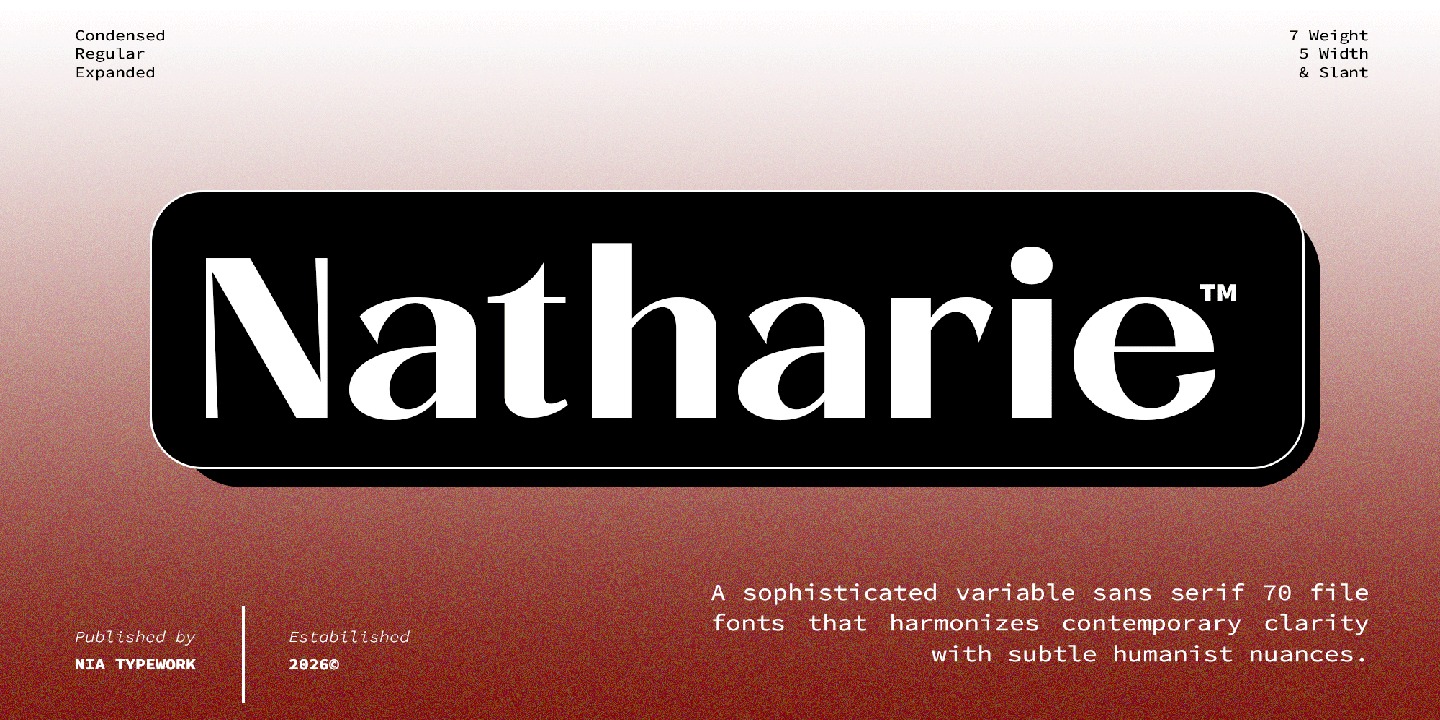
Natharie Font Family
Natharie Font Family brings a balanced structure and contemporary look, making it suitable for both digital and print design. Natharie is a refined sans serif typeface that seamlessly blends modern precision with subtle humanist warmth. Designed for exceptional versatility, it features a comprehensive range of weights, widths, and slants, empowering designers to craft tone and hierarchy effortlessly. Its clean structure guarantees outstanding readability in both print and digital contexts, while nuanced details contribute to a distinctive and approachable character. Natharie is ideal for elegant branding, sophisticated editorial layouts, user interfaces, and comprehensive visual systems, adapting effortlessly to diverse creative needs. This typeface is both functional and expressive, delivering clarity, flexibility, and a contemporary voice for designers who seek a typeface that performs as beautifully as it appears.